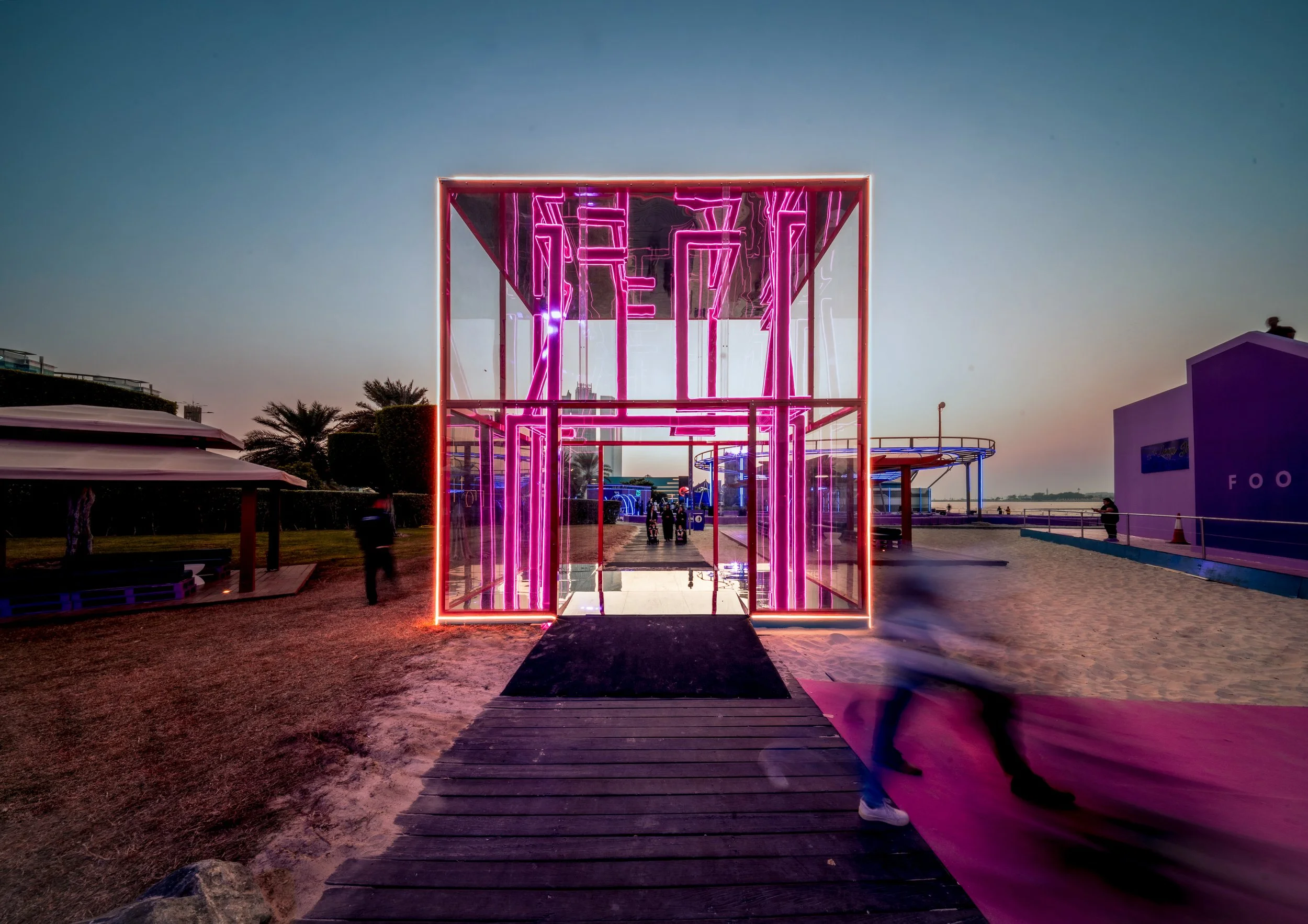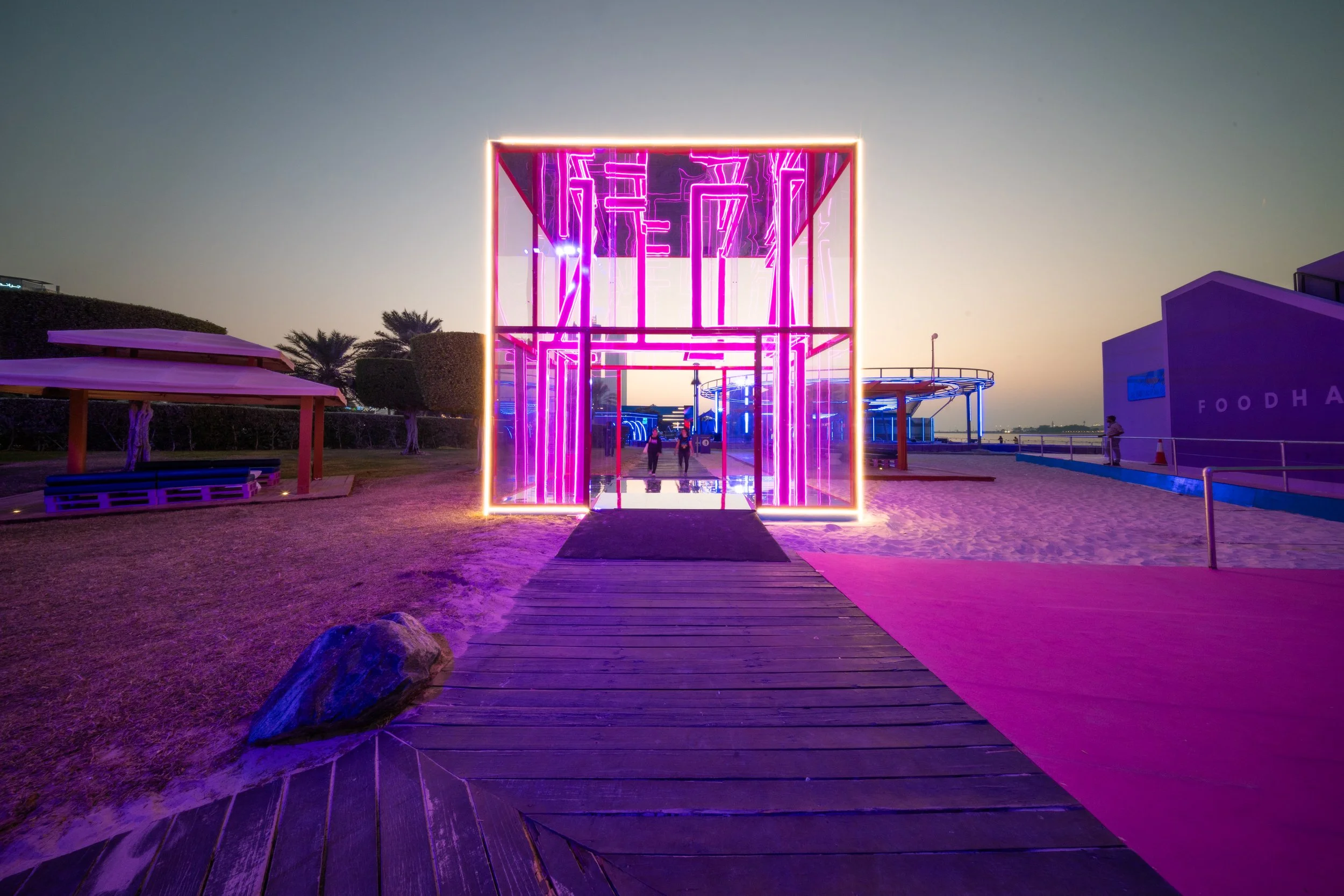
Time Capsule
Time Capsule is a gateway installation that invites the audience to experience a transformative journey. Designed by FPA359 Design Office with attention to detail and an emphasis on artistic vision, it reimagines the traditional gateway.
Instead of using a conventional sign, the event’s name was designed as a dynamic visual experience that subtly emerges. As the audience approaches, the typography transforms, becoming an integral part of the structure and shaping the immersive atmosphere. Inside the installation, vivid projections of the future illuminate the surroundings, and soft neon lights guide your path, creating an atmosphere that feels timeless. The journey unfolds into a corridor of radiant visions, evoking the sensation of traveling through time and space.